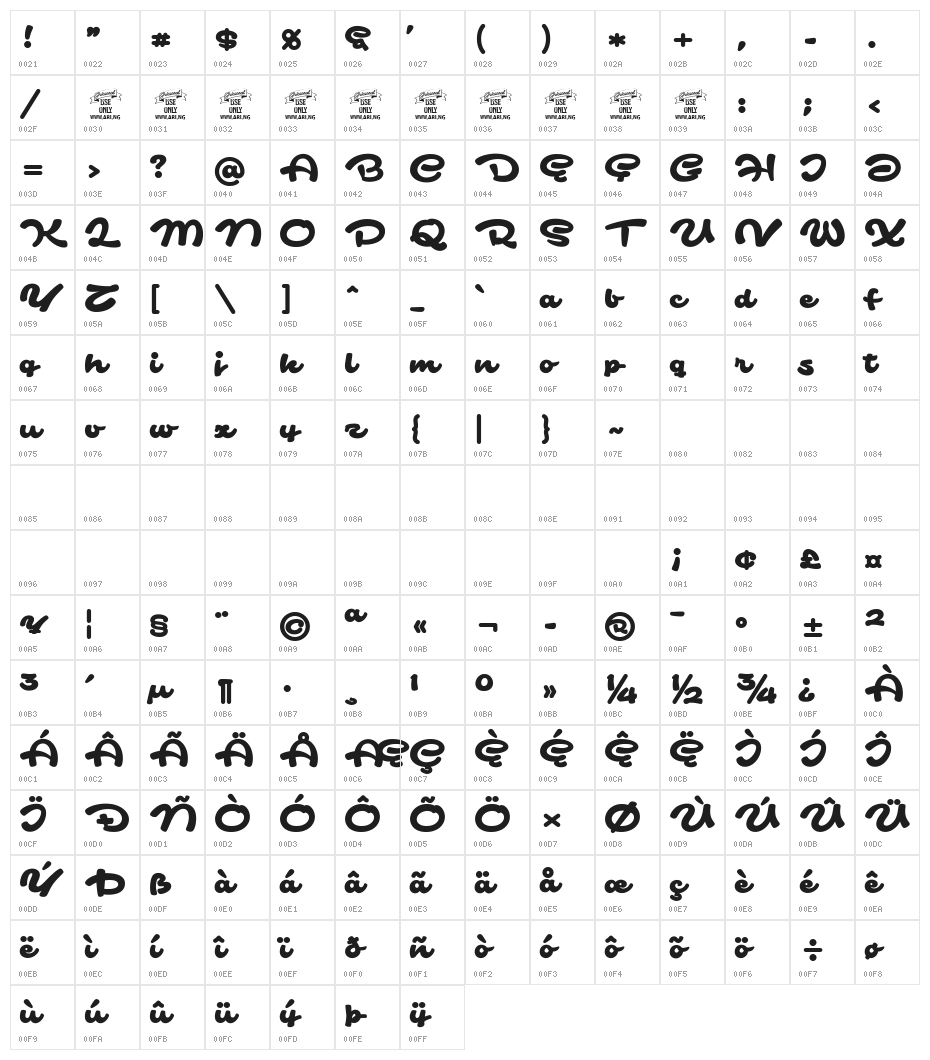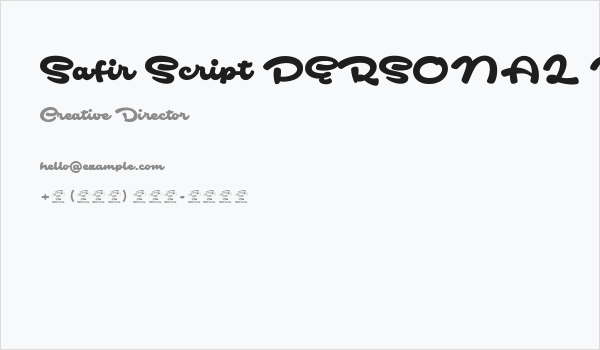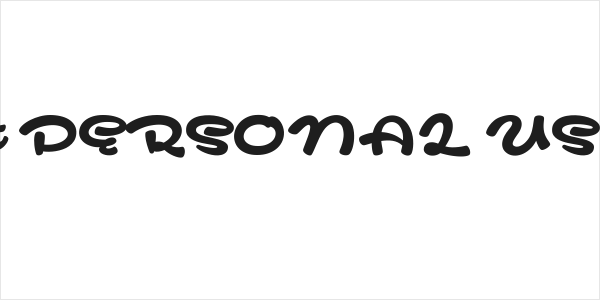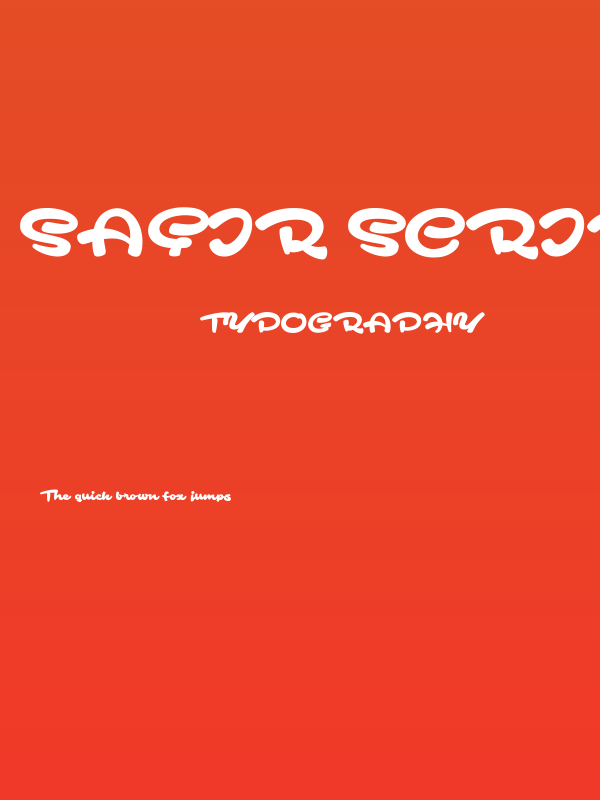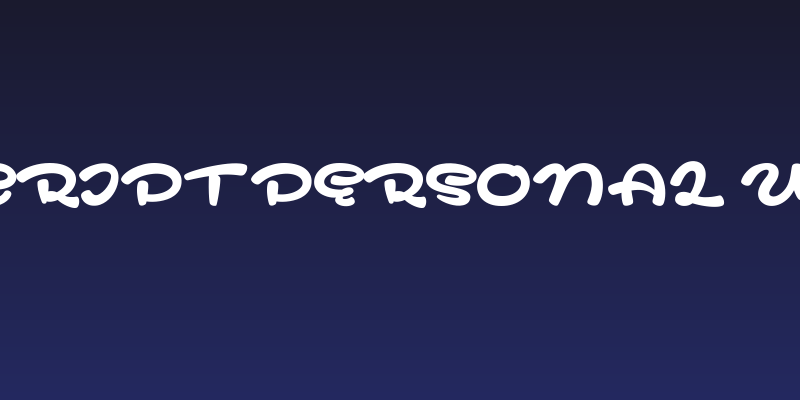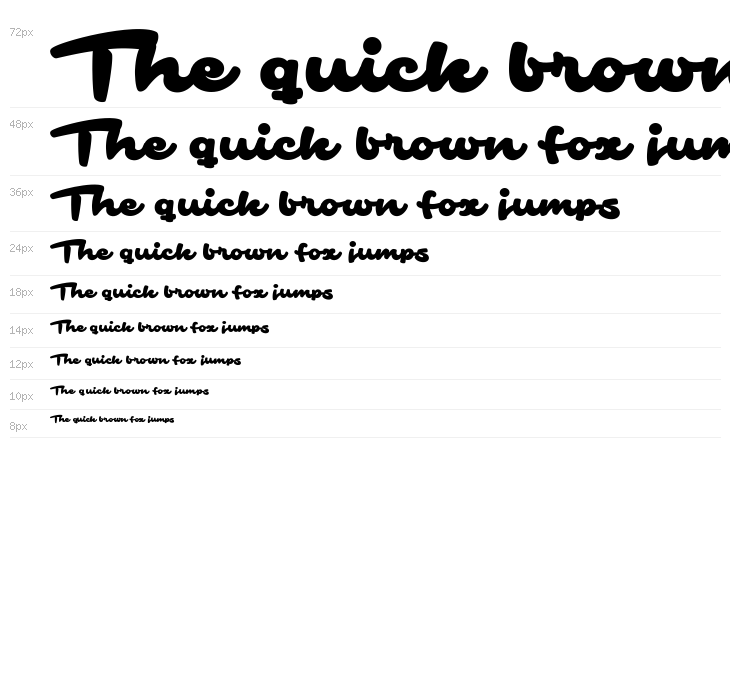
Safir Script PERSONAL USE ONLY Font
Safir Script PERSONAL USE ONLY Description
This font features a bold and flowing script style, characterized by its smooth, connected letters that mimic the fluidity of handwriting. The uppercase letters maintain a consistent height and width, while the lowercase letters exhibit a playful bounce, adding a dynamic rhythm to the text. The strokes are thick and rounded, providing a strong visual impact. Special characters and numbers are designed to match the overall aesthetic, ensuring a cohesive look across all glyphs. This font is ideal for projects that require a personal, artistic touch.
| Use Case | Logos, Invitations, Greeting cards |
| Proposed Projects | Ideal for invitations, greeting cards, logos, and branding materials that require a personal and artistic touch. |